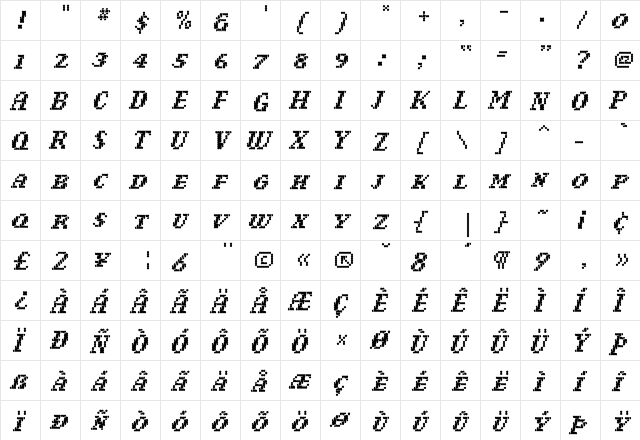
Narly Regular
Design Context for Narly Typeface
Narly is a composed and adaptable typeface that performs quietly and consistently across a wide range of design contexts.